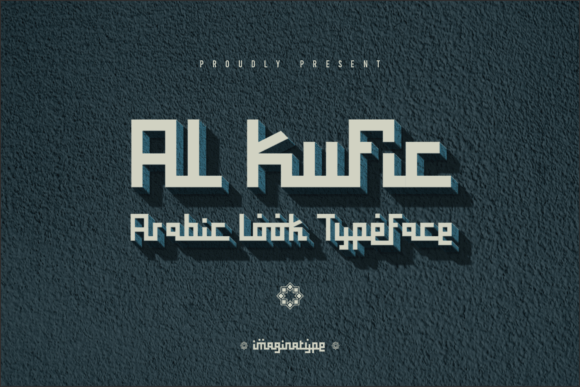
The Magic of Al Kufic Font: Elevate Your Designs with Elegance
I’ll never forget the time I was working on a project for a Muslim client, tasked with creating a logo that reflected their brand’s values and heritage. As I scrolled through font after font, nothing seemed quite right – until I stumbled upon Al Kufic. Its decorative, elegant, and cool look instantly won me over, and I knew I’d found the perfect fit. In this article, I’ll share my love for Al Kufic, its features, and how to make the most of this stunning typeface in your designs.
What I Love About Al Kufic ✨
- ✅ Elegant and sophisticated design inspired by traditional Kufic Arabic style
- ✅ Perfect for events, Muslim and Islamic creations, logos, branding, magazines, social media posts, and advertising flyers
- ✅ Highly versatile and can add a unique touch to any design idea
- ✅ Beautifully crafted to evoke a sense of luxury and refinement
Honest Review: A Few Quirks to Consider 🤔
- ⚠️ Limited use in body text due to its decorative nature
- ⚠️ May not be suitable for very small font sizes or low-resolution designs
- ⚠️ Some users may find the font too ornate or attention-seeking for certain projects
- Explore OpenType features, glyphs, and stylistic alternates to customize your text and make it truly unique
One of the standout features of Al Kufic is its OpenType capabilities. With access to a wide range of glyphs and stylistic alternates, you can:
- Create beautiful ligatures and swashes to add flair to your text
- Experiment with different stylistic sets to find the perfect look for your project
- Use glyphs to add decorative elements, such as borders, frames, or icons
The Story Behind Al Kufic: A Designer Inspiration
Al Kufic’s design is rooted in the rich history of Arabic calligraphy. The font’s creator drew inspiration from the traditional Kufic style, which dates back to the 7th century. By combining classic elements with modern sensibilities, Al Kufic was born – a font that embodies both elegance and sophistication.
| What type of projects is Al Kufic best suited for? | Al Kufic is perfect for events, Muslim and Islamic creations, logos, branding, magazines, social media posts, and advertising flyers. |
| Can I use Al Kufic for body text? | While Al Kufic is beautiful, it’s primarily designed for headings and titles. For body text, consider a clearer, more legible font. |
| Is Al Kufic available in different weights or styles? | Al Kufic comes in a range of styles, including regular, bold, and italic. Check the font package for specific weights and variations. |